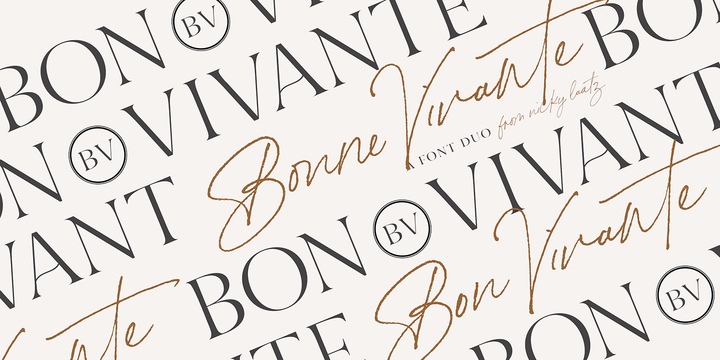
Bon Vivant Font
Bon Vivant Font is perfect for luxury lifestyle branding, sophisticated wine collections, upscale dining establishments, exclusive travel experiences, refined hospitality venues, gourmet food packaging, elegant social events, premium leisure services, cultivated entertainment venues, and epicurean lifestyle brands.
Bon Vivant Font creates excitement because it embodies the art of refined living and cultivated pleasure with its sophisticated letterforms and epicurean character design. The font's elegant proportions and luxurious aesthetic instantly convey the joy of fine living and sophisticated taste, making any brand appear cultured and authentically refined. Its carefully crafted epicurean details and pleasure-seeking character create an immediate sense of sophisticated enjoyment that captivates audiences seeking exquisite experiences, refined pleasures, and products that celebrate the beautiful art of living well and savoring life's finest moments.
The Bon Vivant Font family includes multiple weights and styles: Regular, Bold, Light, Medium, Italic, Condensed, Extended, Luxurious, Refined, and Epicurean versions. Each variant maintains the font's signature sophisticated character while offering different levels of luxury refinement and epicurean styling suitable for various high-end lifestyle and hospitality applications.
This exquisite typeface brings the authentic spirit of sophisticated living into contemporary luxury design with remarkable elegance and epicurean appeal. Bon Vivant Font Free Download provides luxury lifestyle brands and epicurean enterprises with access to premium refined typography that embodies the essence of cultivated pleasure and sophisticated enjoyment. The font's luxurious design and epicurean authenticity make it ideal for businesses seeking to establish meaningful connections with discerning audiences who appreciate the finer things in life and cultivated experiences. Whether you're creating branding for luxury hospitality venues, designing materials for gourmet establishments, developing communications for exclusive lifestyle services, or producing content for refined entertainment experiences, this font delivers the epicurean atmosphere that resonates with audiences seeking sophisticated pleasures, cultivated experiences, and the refined joy of living life to its fullest potential. Its versatile design ensures excellent performance across both luxurious printed materials and sophisticated digital applications while maintaining the character of authentic epicurean typography. The font excels in applications requiring luxury credibility and sophisticated appeal. Luxury lifestyle professionals appreciate its ability to convey refined pleasure while remaining highly functional for various hospitality communications and epicurean promotional materials. The comprehensive character set includes luxurious flourishes and extensive international language support, making it perfect for global luxury brands and international epicurean organizations seeking to communicate authentic sophistication, refined pleasure, and cultivated lifestyle excellence to discerning worldwide audiences who embrace the art of fine living, appreciate sophisticated pleasures, and seek the exquisite joy that comes from savoring life's most beautiful moments with cultivated taste and refined appreciation for true luxury living.